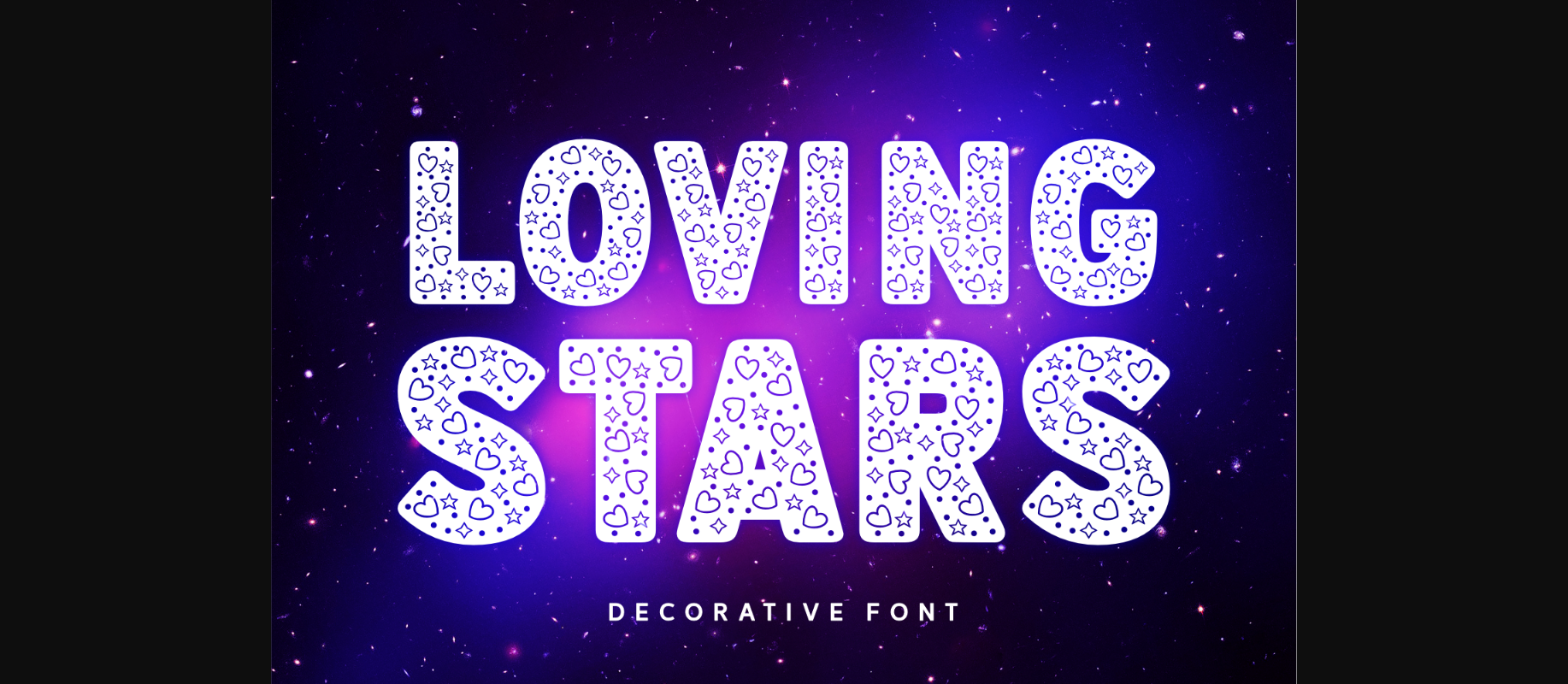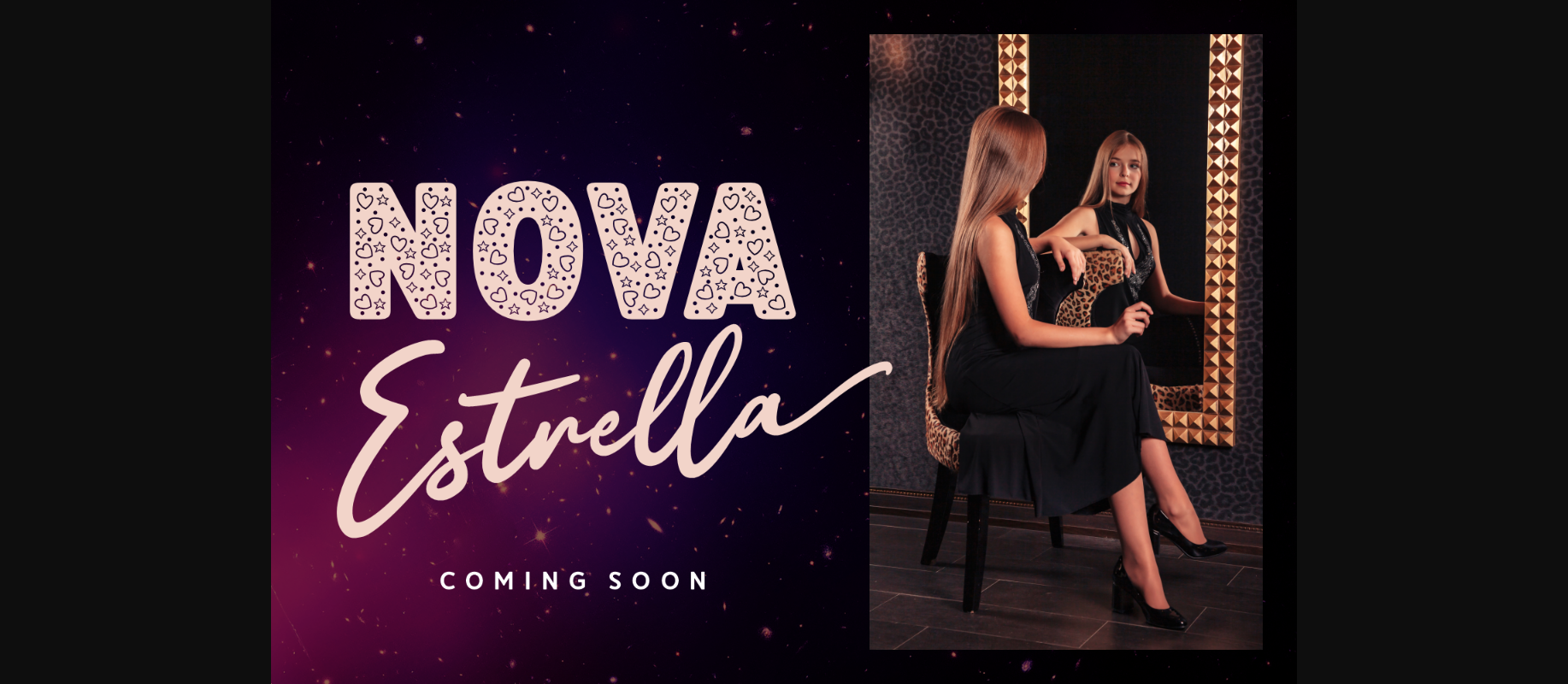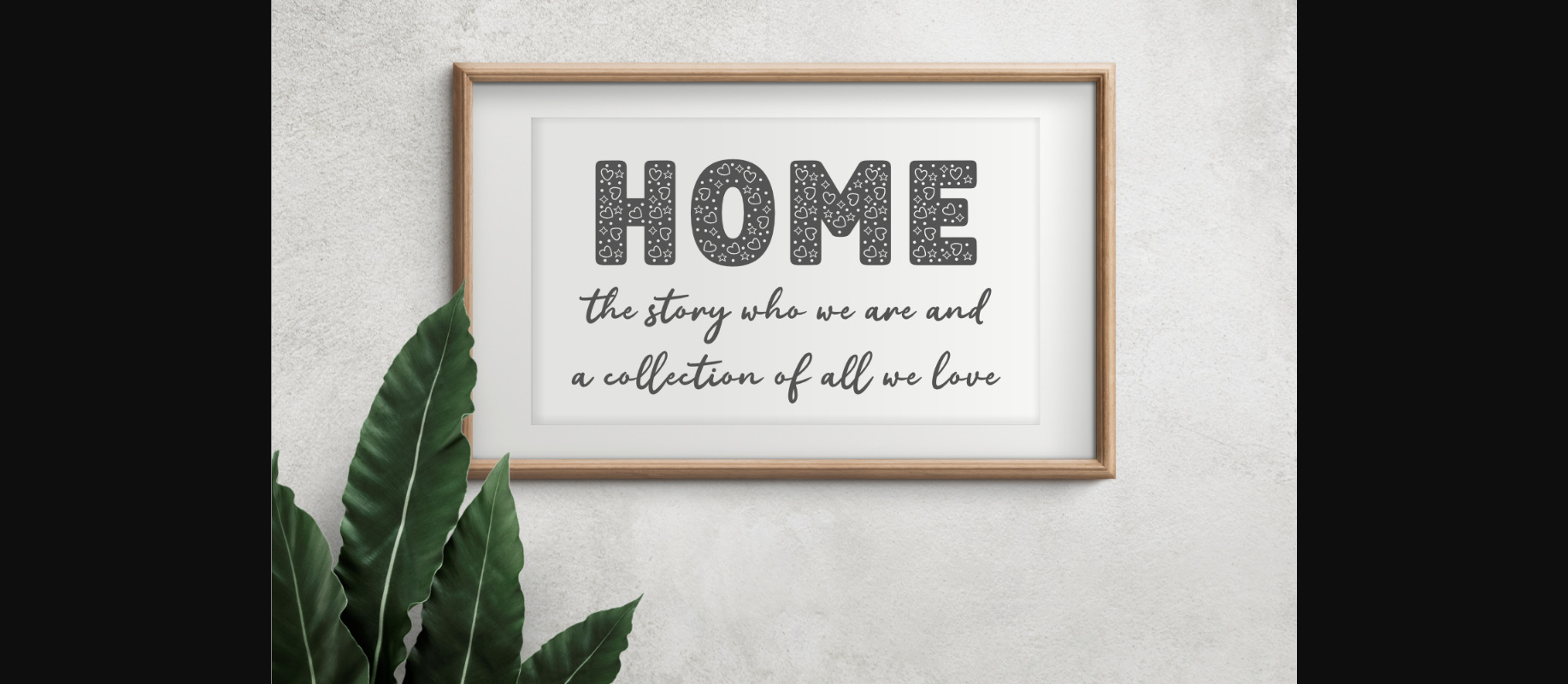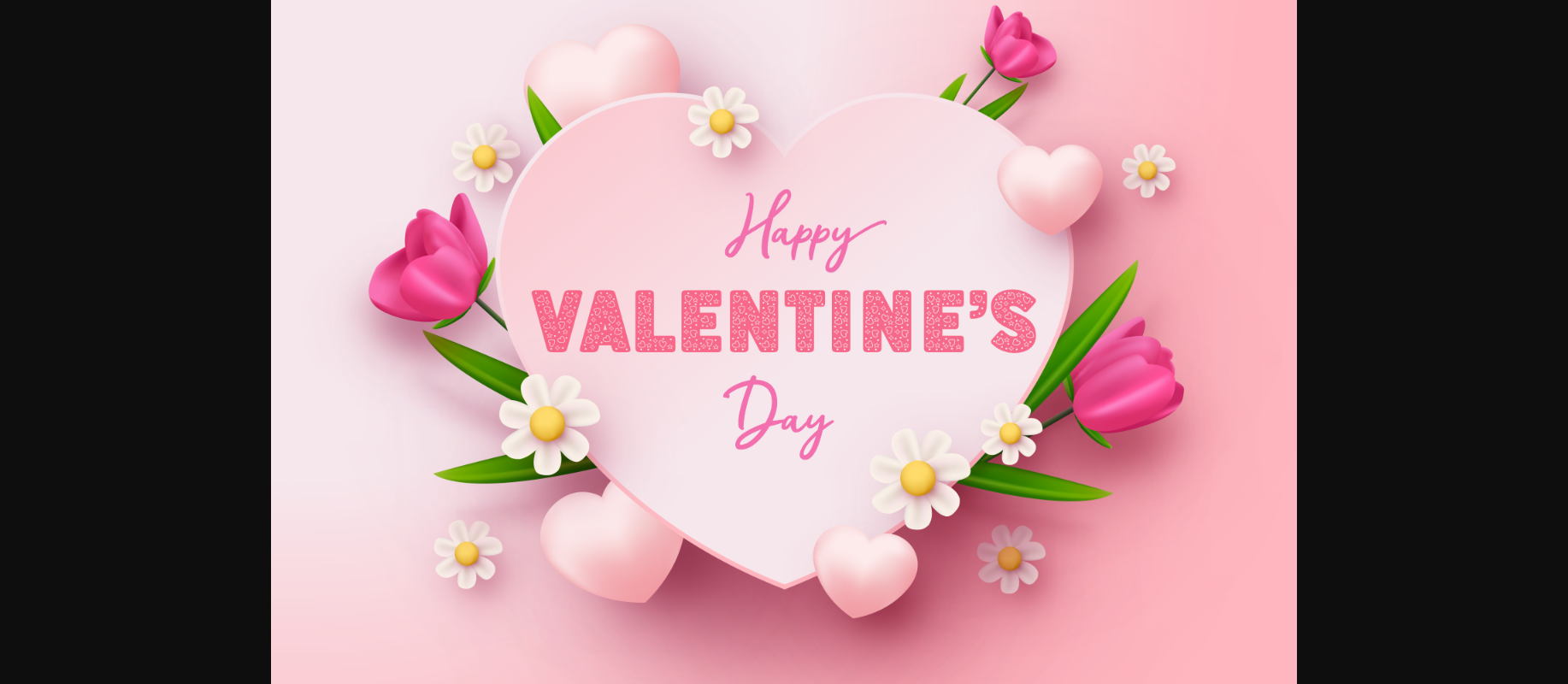
About Loving Stars Font
Loving Stars is a delightful and charming decorative font. The elements used in Loving Stars font composition, petite hearts, dainty stars, tiny dots, and other refined aspects of calligraphy suggest its use for creating invitations, event posters, brand names, greeting cards, and much more.